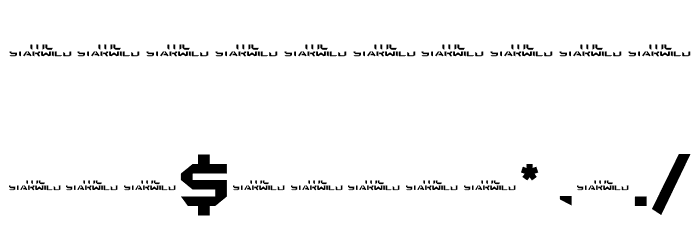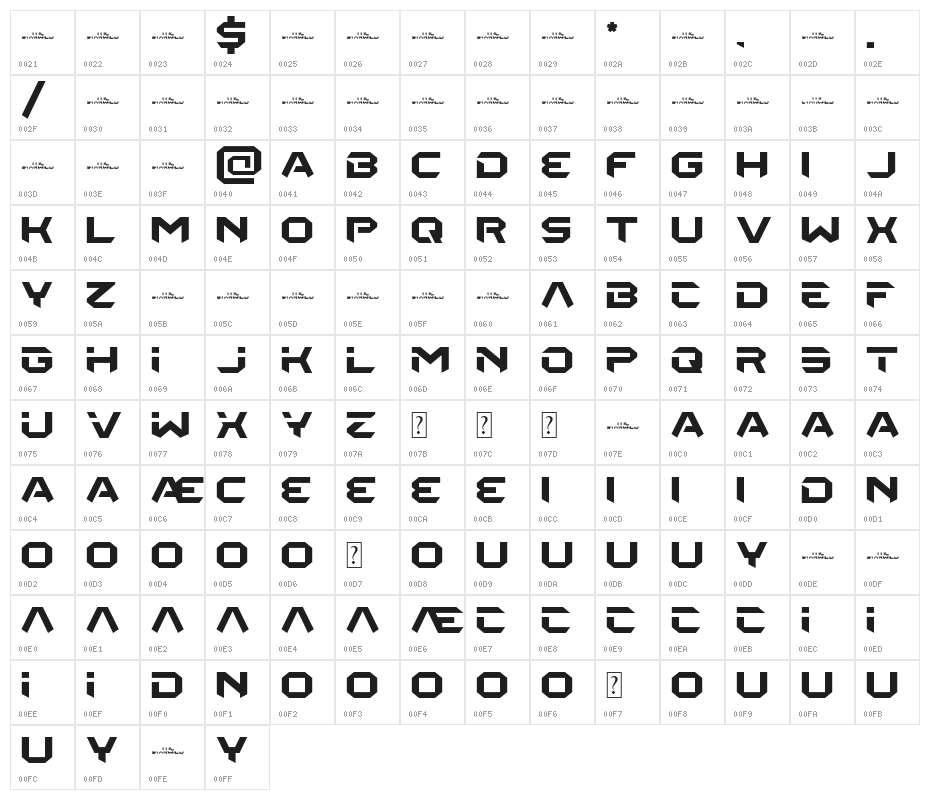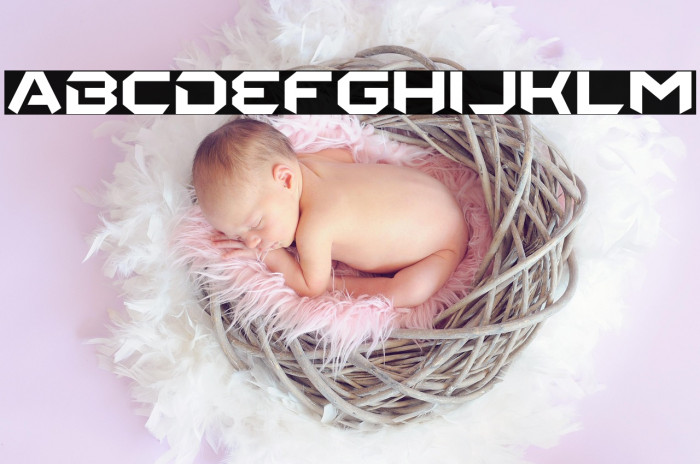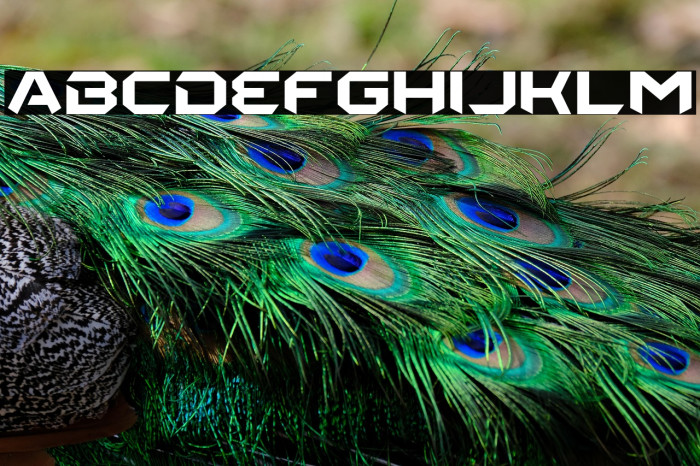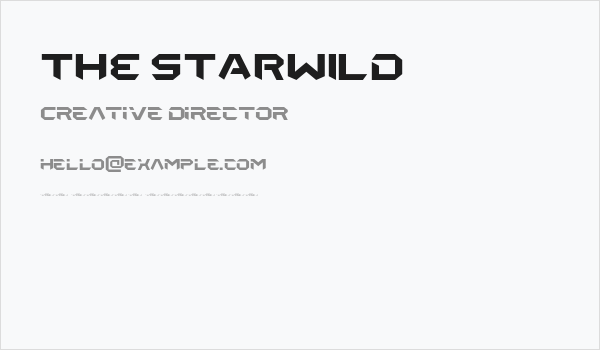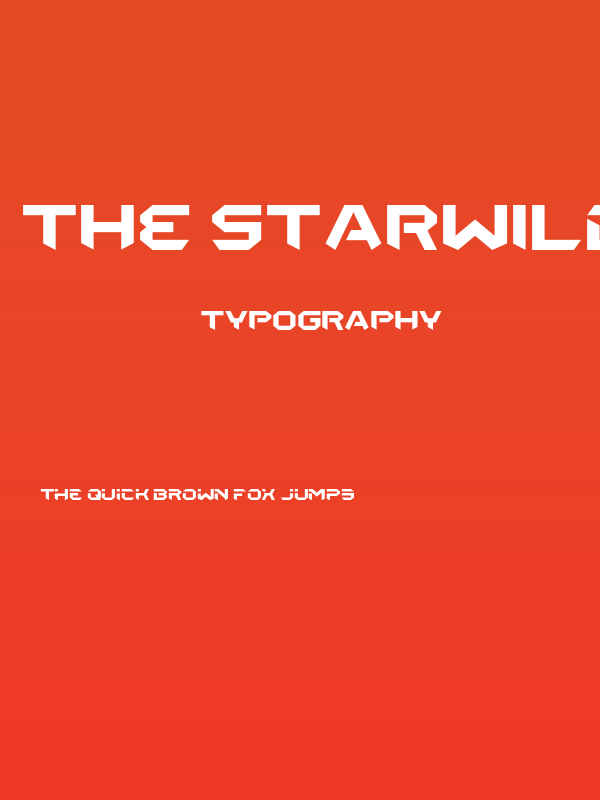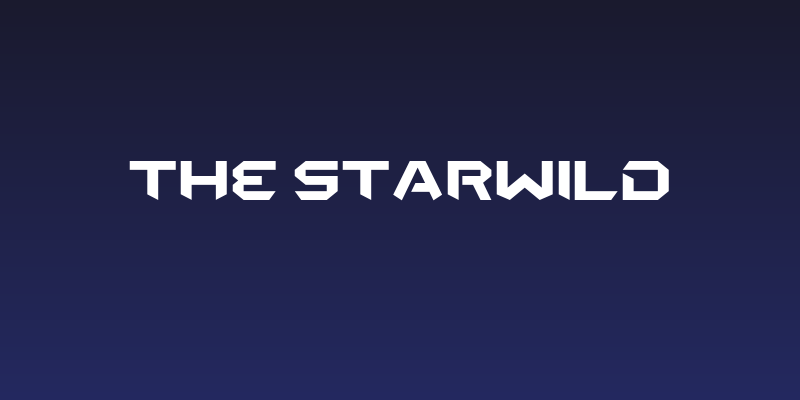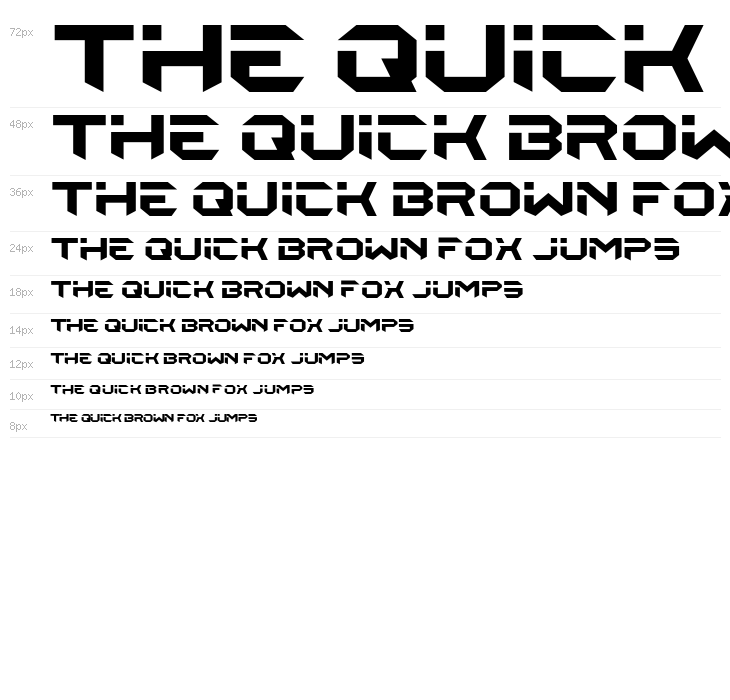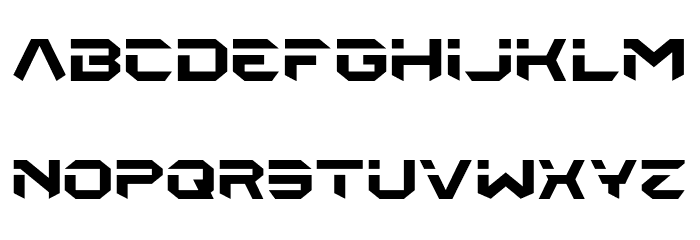
THE STARWILD Font
THE STARWILD Description
This font features a bold and futuristic design, characterized by sharp angles and geometric shapes. The uppercase letters are distinctly angular, with a consistent thickness that gives a strong, impactful appearance. The lowercase letters maintain the same geometric style, ensuring uniformity across the typeface. Numbers and special characters are designed to match the bold, modern aesthetic, making them suitable for attention-grabbing headlines or logos. The font's unique style is reminiscent of sci-fi themes, making it ideal for projects that require a modern and edgy look.
| Proposed Projects | Ideal for sci-fi themed designs, video game titles, movie posters, and modern branding. |